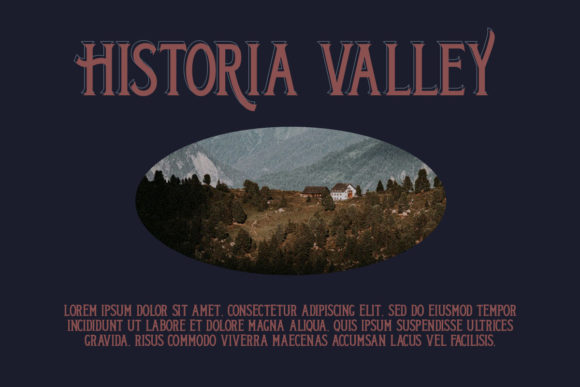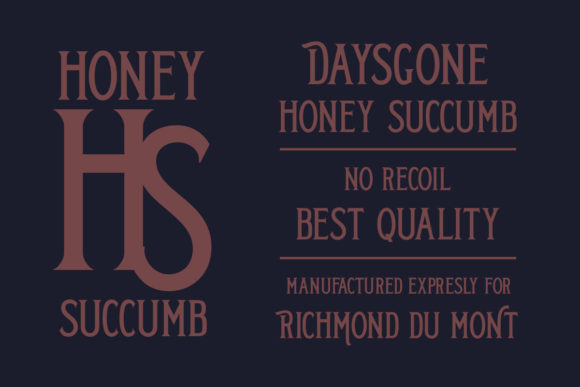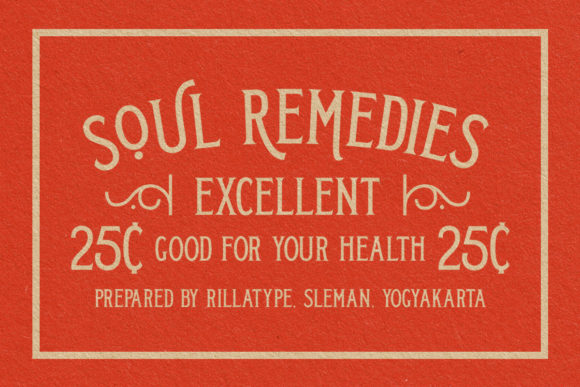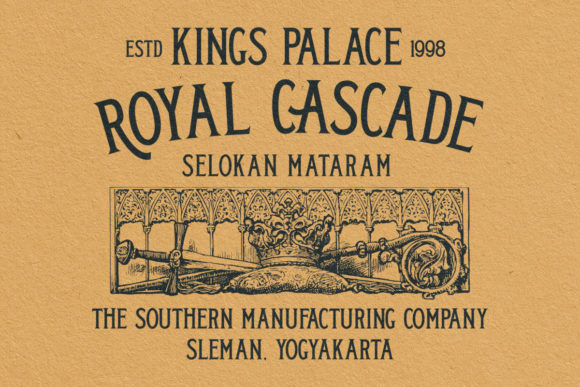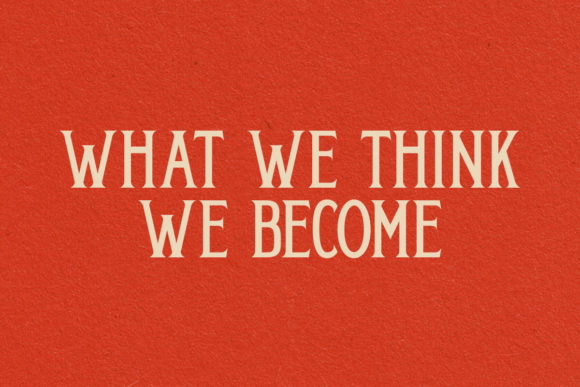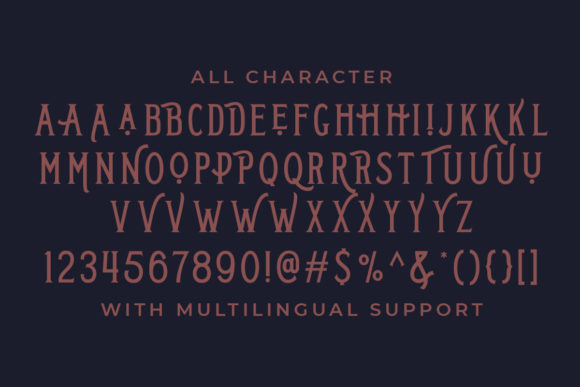
Introducing Dirchave Font: The Ultimate Choice for Bold and Vintage Designs
Are you a designer or crafter looking for a font that exudes a sense of strength and nostalgia? Look no further than Dirchave Font, a fierce, vintage-styled, and thick lettered serif font that’s perfect for a wide range of design applications. In this article, we’ll explore the features and benefits of Dirchave Font, and why it’s an excellent choice for your next design project.
What is Dirchave Font?
Dirchave Font is a serif font that’s designed to make a statement. Its bold, thick letters are reminiscent of vintage signs and posters, evoking a sense of nostalgia and ruggedness. The font’s serif design adds a touch of sophistication and elegance, making it suitable for a variety of design applications, from apparel and packaging to branding and labels.
Key Features of Dirchave Font
- Fierce and bold design: Dirchave Font is designed to grab attention. Its thick letters and serif details make it a perfect choice for designs that require a strong and assertive look.
- Vintage style: The font’s vintage inspiration makes it ideal for designs that require a nostalgic or retro feel.
- High versatility: Dirchave Font can be used for a wide range of design applications, including apparel, packaging, branding, labels, and more.
- Easy to read: Despite its bold design, Dirchave Font is easy to read, making it suitable for body text and headlines.
Use Cases for Dirchave Font
Dirchave Font is an excellent choice for a variety of design applications, including:
- Apparel: Use Dirchave Font to create bold and eye-catching designs for t-shirts, hoodies, and other apparel items.
- Packaging: Dirchave Font is perfect for packaging design, adding a touch of ruggedness and sophistication to product labels and packaging materials.
- Branding: Use Dirchave Font to create a strong and memorable brand identity that stands out from the competition.
- Labels: Dirchave Font is an excellent choice for label design, adding a touch of elegance and sophistication to product labels and stickers.
Why Choose Dirchave Font?
There are many fonts available that offer a similar look and feel to Dirchave Font, but here are a few reasons why Dirchave stands out:
- Unique design: Dirchave Font has a unique design that sets it apart from other serif fonts.
- High-quality: The font is designed with high-quality and precision, ensuring that it looks great in any design application.
Tips for Using Dirchave Font
Here are a few tips for getting the most out of Dirchave Font:
- Use it boldly: Dirchave Font is designed to make a statement, so don’t be afraid to use it boldly and prominently in your designs.
- Experiment with colors: Dirchave Font looks great in a variety of colors, so experiment with different color schemes to find the one that works best for your design.
- Pair it with other fonts: Dirchave Font pairs well with other fonts, so consider using it in combination with other fonts to create a unique and interesting design.
Dirchave Font is a powerful and versatile font that’s perfect for designers and crafters looking to add a touch of strength and nostalgia to their designs. With its bold and vintage-inspired design, Dirchave Font is suitable for a wide range of design applications, from apparel and packaging to branding and labels. Whether you’re looking to create a bold and eye-catching design or a sophisticated and elegant one, Dirchave Font is an excellent choice.